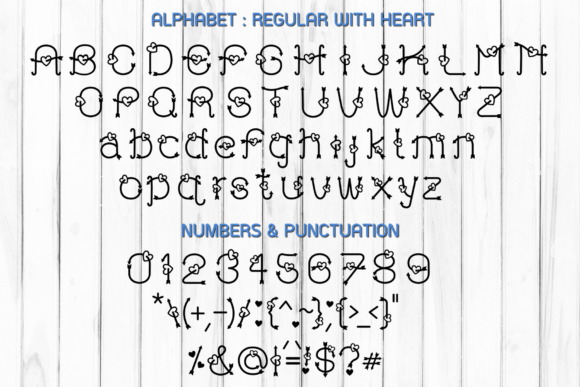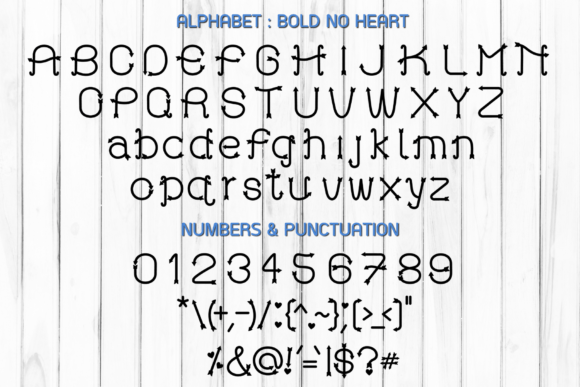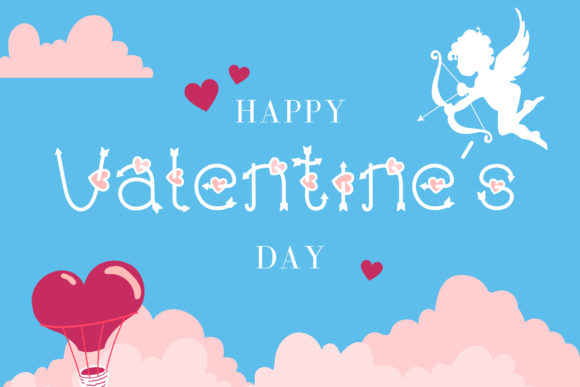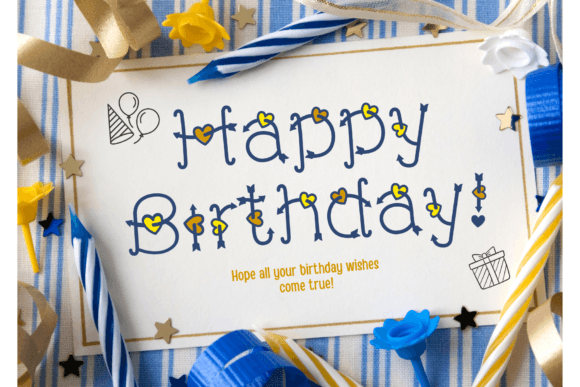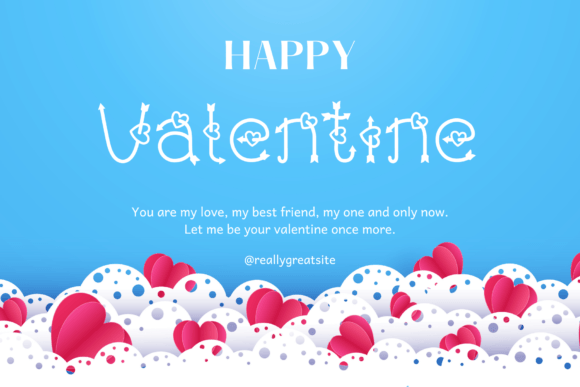
Introducing Arrow Heart Font: The Perfect Addition to Your Design Projects
Are you a designer or crafter looking for a unique and charming font to elevate your creative projects? Look no further than Arrow Heart Font, a delightful and decorative display font that’s sure to capture hearts. With its warm and friendly vibe, this font is perfect for adding a touch of romanticism to headlines, logos, titles, and more.
What is Arrow Heart Font?
Arrow Heart Font is a carefully crafted decorative display font that exudes a sense of playfulness and charm. Its distinctive design features arrow-shaped hearts that add a whimsical touch to any text, making it an ideal choice for designers and crafters who want to infuse their projects with a dash of personality.
Key Features of Arrow Heart Font
- Cute and Fun Design: The font’s unique arrow-heart design makes it perfect for creating eye-catching headlines, logos, and titles that are sure to stand out.
- Warm and Friendly Vibe: The font’s warm and inviting aesthetic makes it perfect for projects that require a personal touch, such as wedding invitations, greeting cards, and social media graphics.
- Romantic and Whimsical: The arrow-heart design adds a touch of romanticism to any project, making it perfect for Valentine’s Day-themed designs, love letters, and more.
- Highly Versatile: Arrow Heart Font can be used for a wide range of design projects, from digital graphics to print materials, and is compatible with most design software.
Uses for Arrow Heart Font
With its versatility and charm, Arrow Heart Font can be used in a variety of design projects, including:
- Headlines and Titles: Add a touch of whimsy to your headlines and titles with Arrow Heart Font, making them perfect for blog posts, articles, and social media graphics.
- Logos and Branding: Create a unique and memorable logo for your business or brand with Arrow Heart Font, which is sure to leave a lasting impression on your customers.
- Wedding and Event Invitations: Add a touch of romance to your wedding or event invitations with Arrow Heart Font, making them truly special and unforgettable.
- DIY Crafts and Projects: Use Arrow Heart Font to add a personal touch to your DIY crafts and projects, such as handmade cards, gift tags, and more.
Tips for Using Arrow Heart Font
To get the most out of Arrow Heart Font, here are a few tips to keep in mind:
- Experiment with Colors: Try pairing Arrow Heart Font with different colors to create a unique and eye-catching design.
- Mix and Match Fonts: Combine Arrow Heart Font with other fonts to create a visually appealing contrast and add depth to your design.
- Use it Sparingly: While Arrow Heart Font is perfect for headlines and titles, use it sparingly to avoid overwhelming your design.
| Font Name | Arrow Heart Font |
| Author | 1515AngelStudio |
Arrow Heart Font is a delightful and charming decorative display font that’s perfect for designers and crafters looking to add a touch of personality to their projects. With its unique arrow-heart design, warm and friendly vibe, and versatility, this font is sure to become a staple in your design toolkit. So why wait? Download Arrow Heart Font today and start creating beautiful, eye-catching designs that capture hearts!